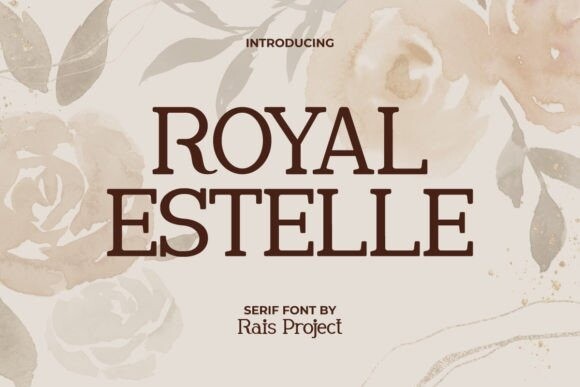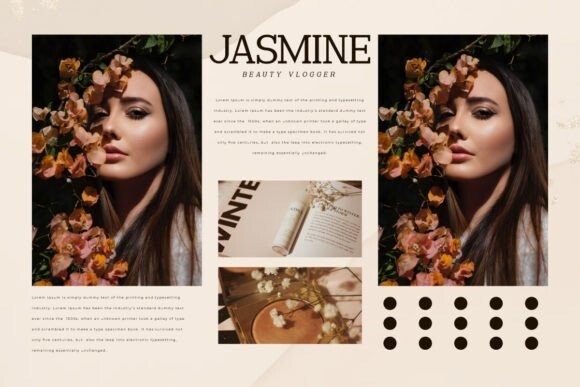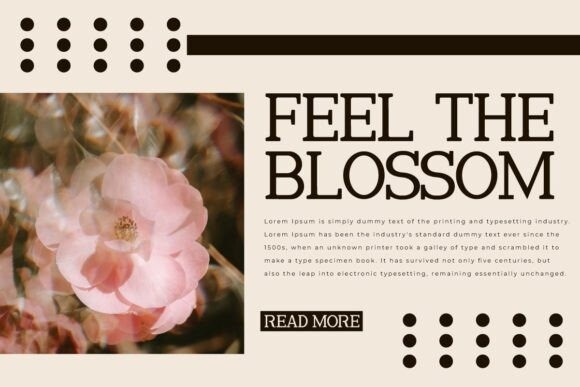
Royal Estelle Font
Royal Estelle Font is an elegant serif font, designed by RaisProject. This luxurious serif font would be perfect for wedding or event organizer, restaurant, café, beauty product, fashion, florist, publishing, printing, homeware, custom design, and more!